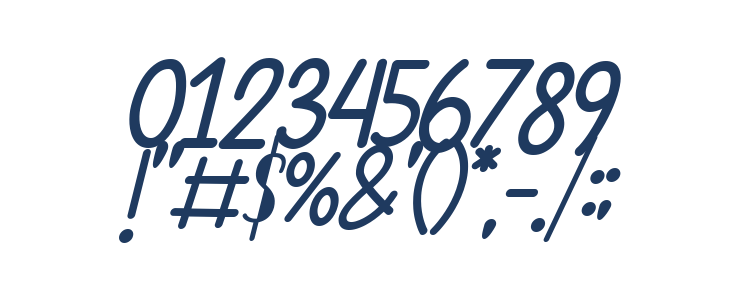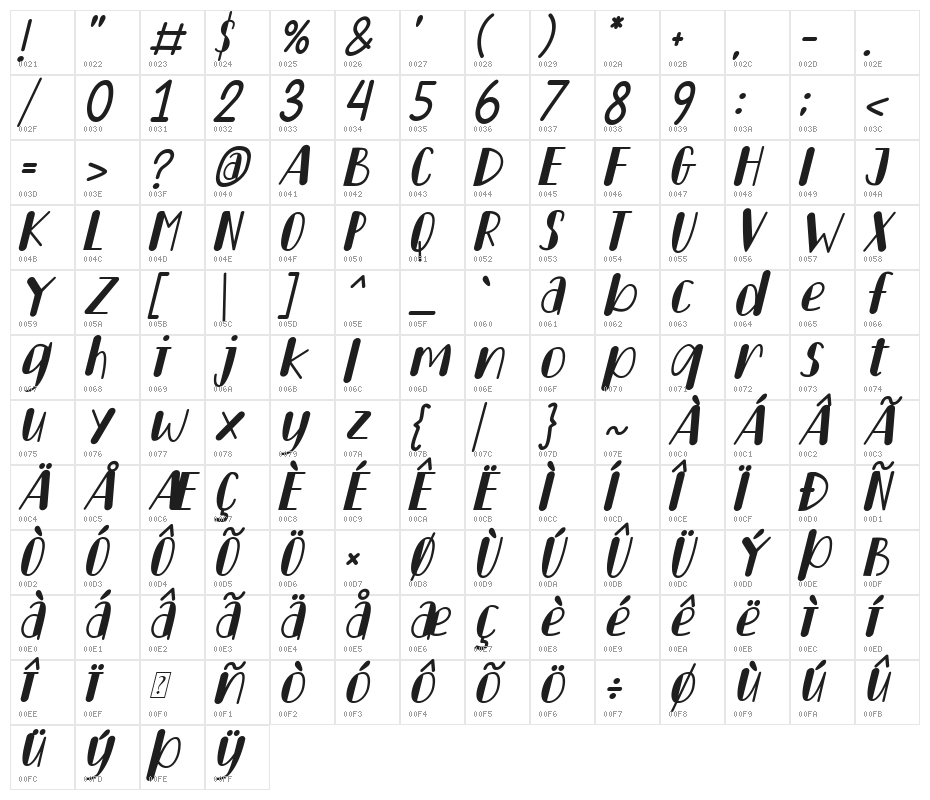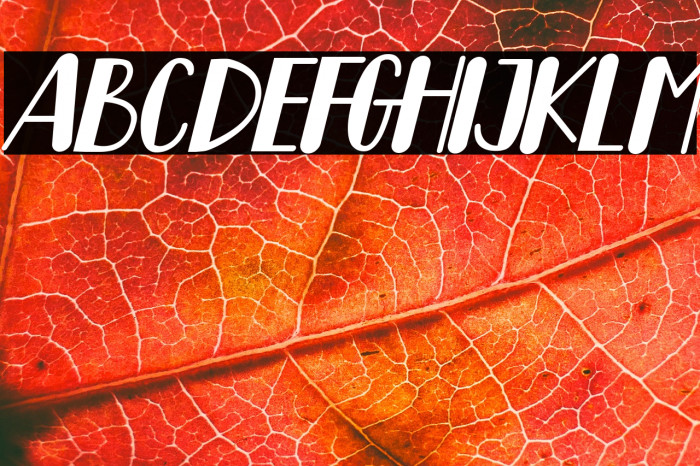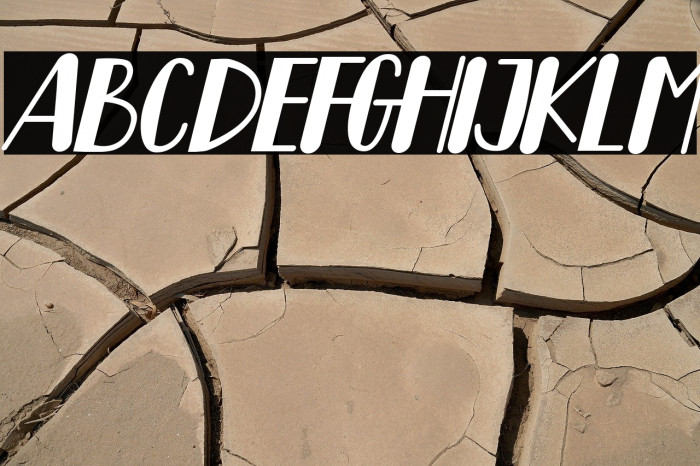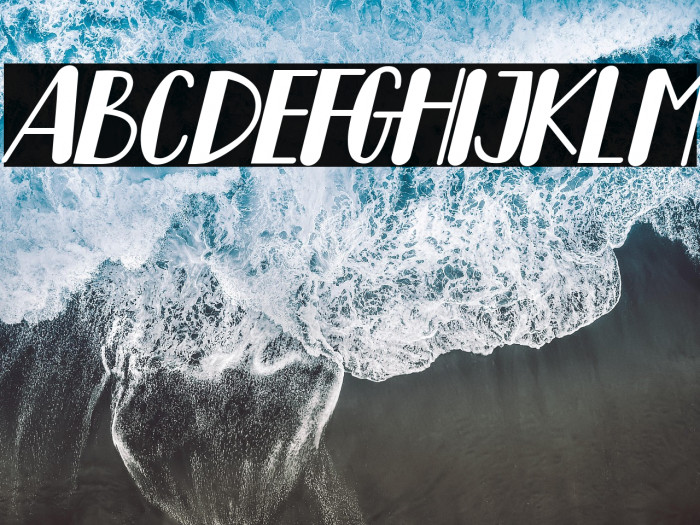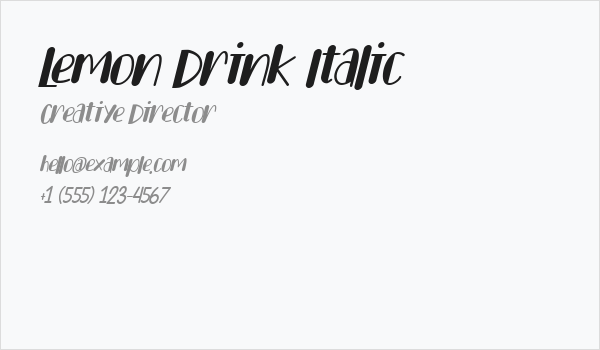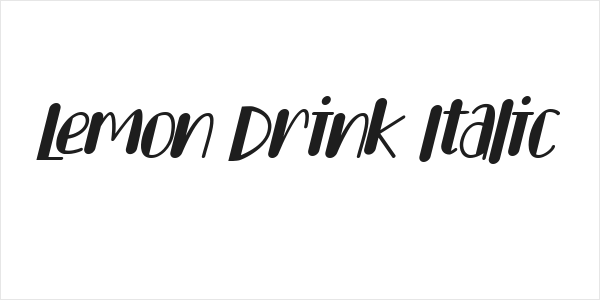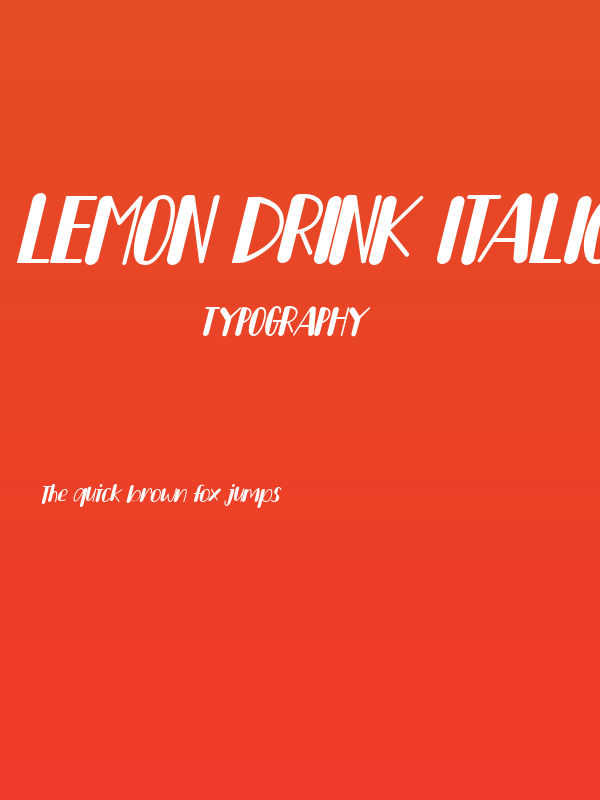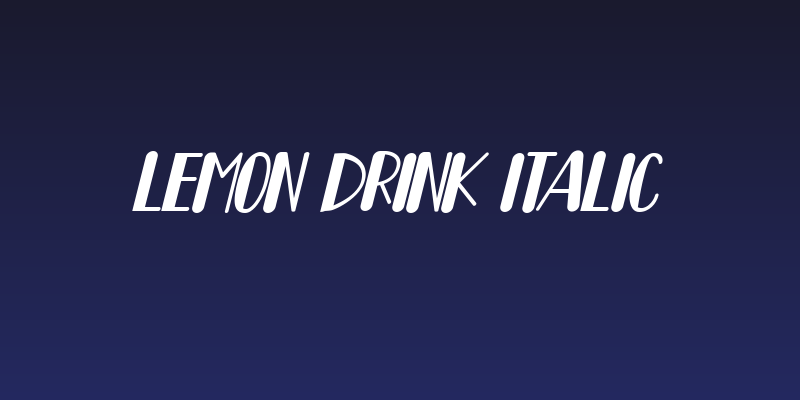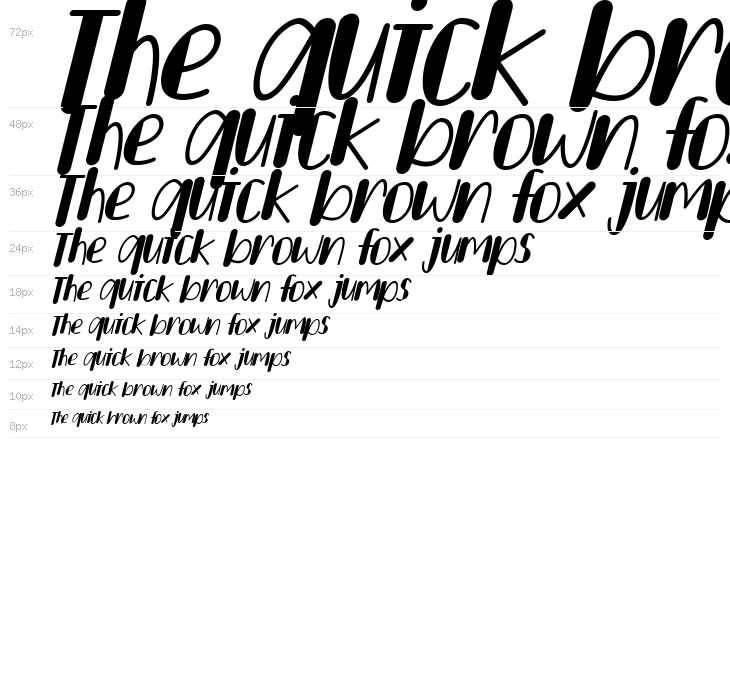
Lemon Drink Italic Font
Lemon Drink Italic Description
This font features a dynamic and energetic style with a handwritten flair. The characters are slightly slanted, giving an italicized appearance that enhances its fluidity and movement. The strokes are bold and consistent, with a smooth flow that connects each letter seamlessly. The uppercase letters are tall and commanding, while the lowercase letters maintain a playful and approachable demeanor. The numbers are clear and legible, matching the overall aesthetic of the font. Special characters are creatively designed, adding to the font's versatility. This font is perfect for projects that require a lively and engaging typeface.
Proposed ProjectsIdeal for branding, packaging, posters, and social media graphics that need a lively touch.